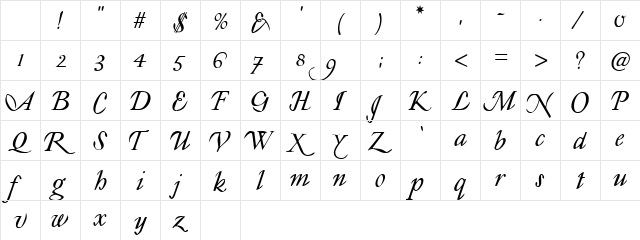
Lyonesse Regular Free Font
Lyonesse Regular
Design Context for Lyonesse
Lyonesse is a composed and adaptable typeface that performs quietly and consistently across a wide range of design contexts.